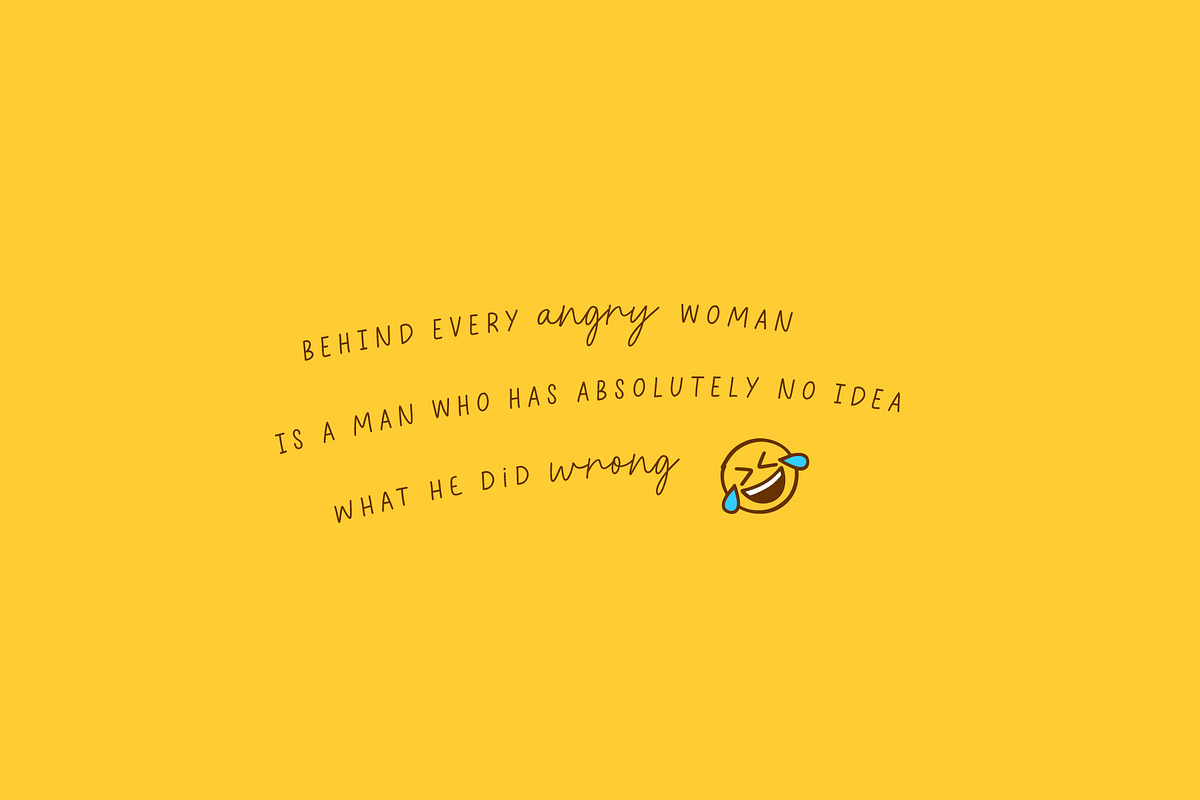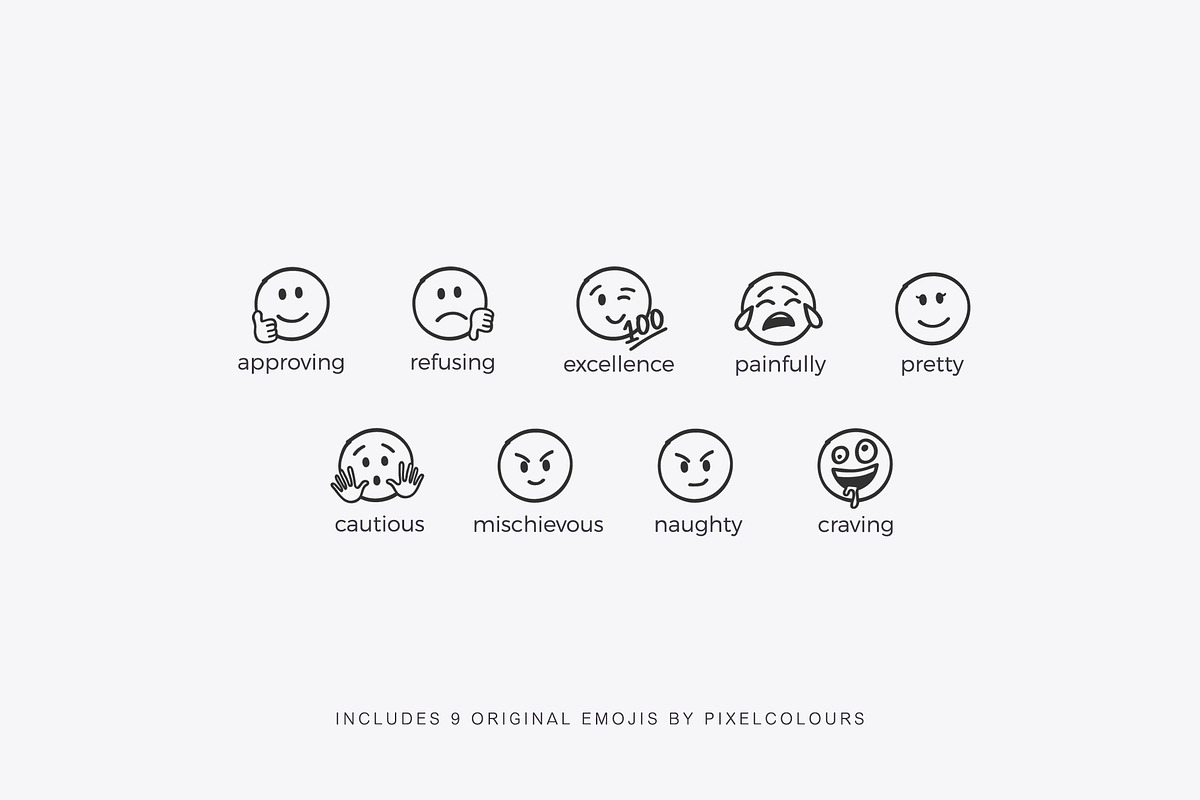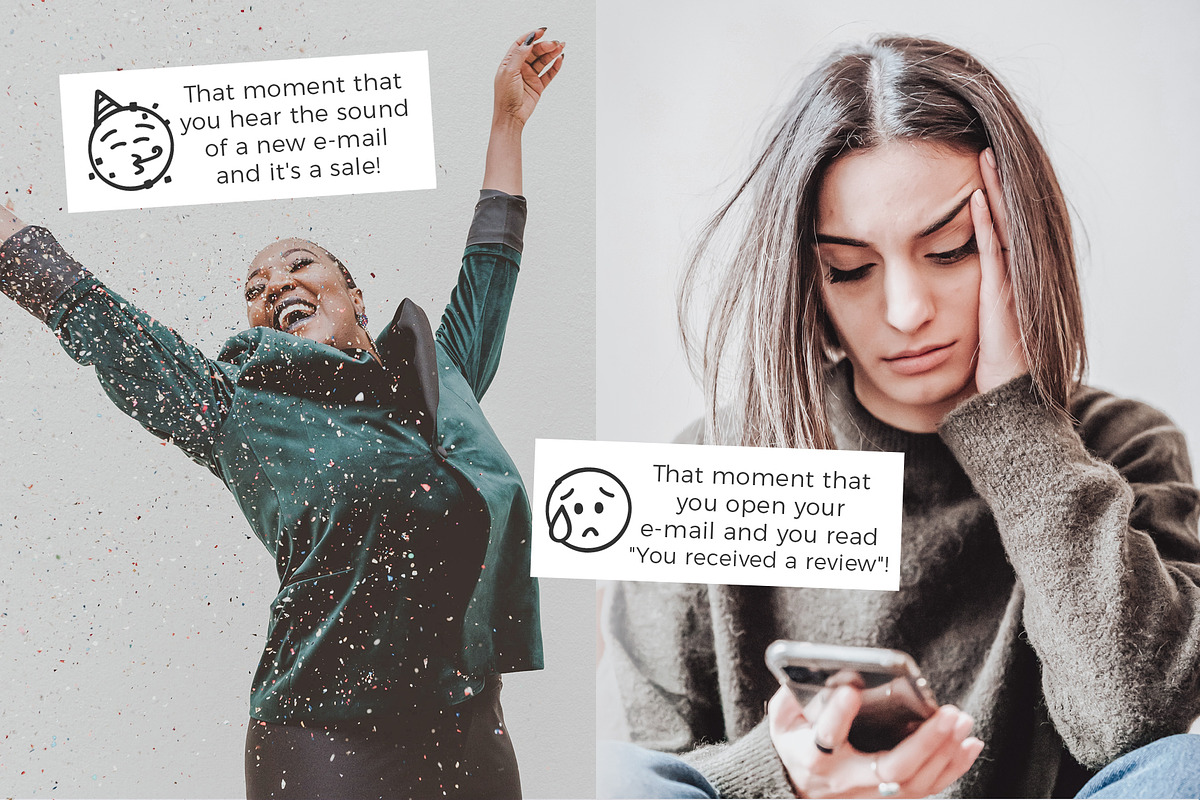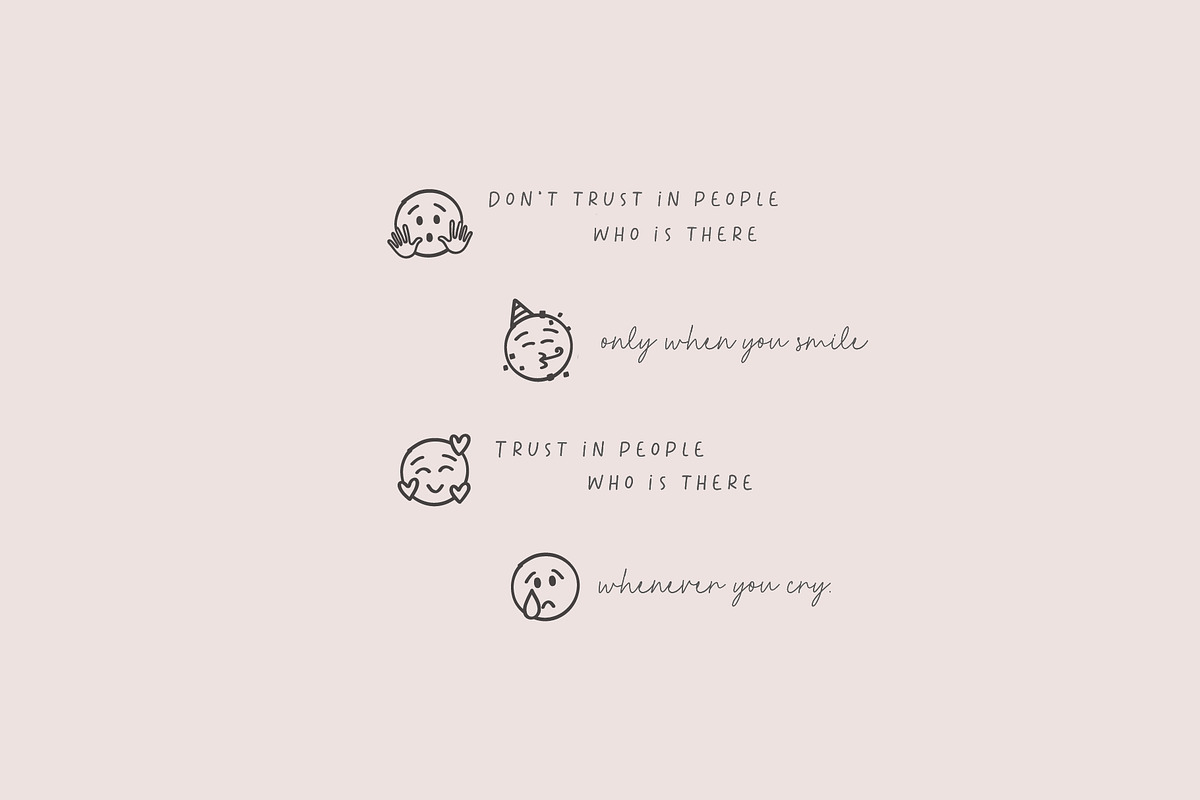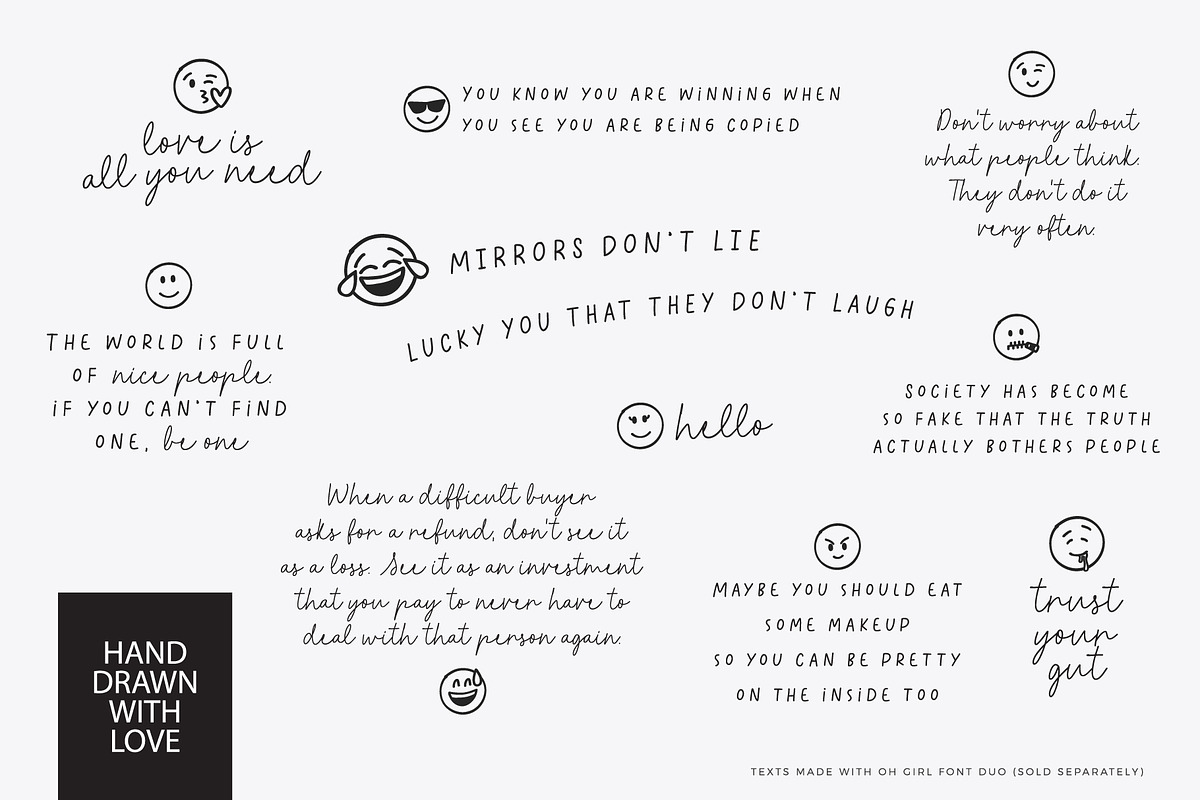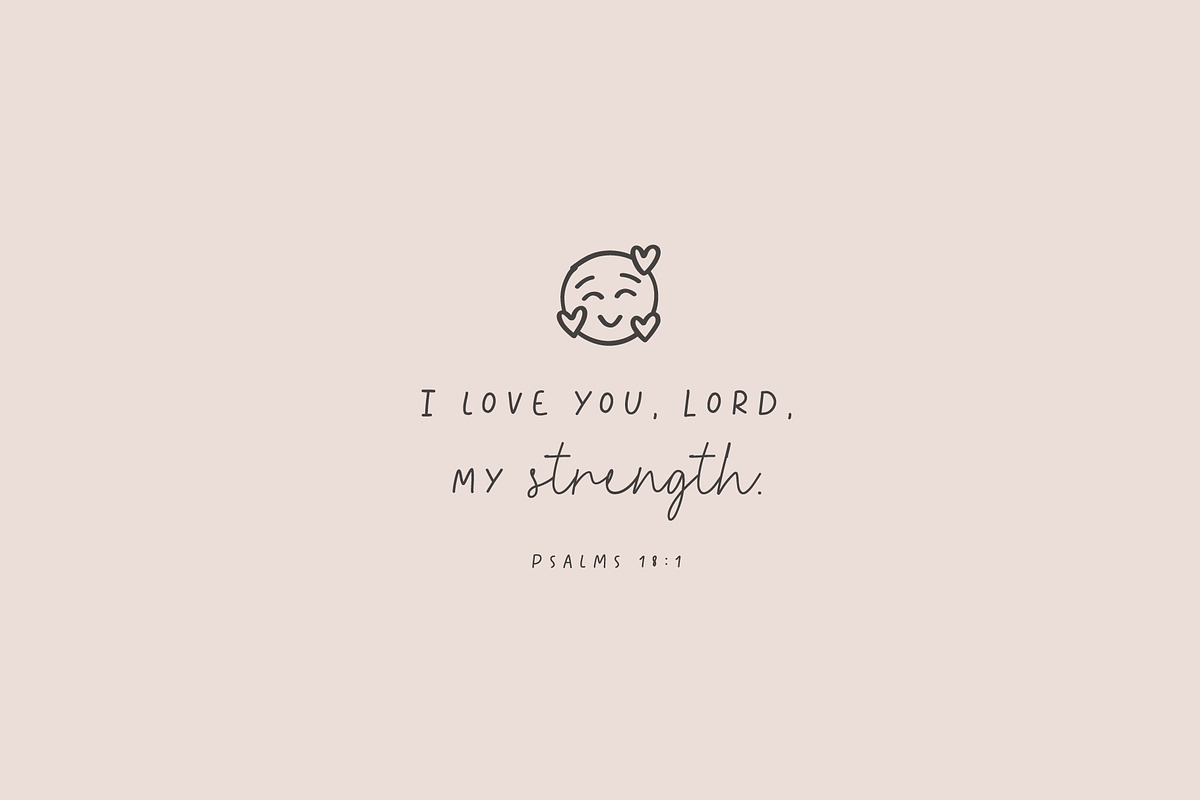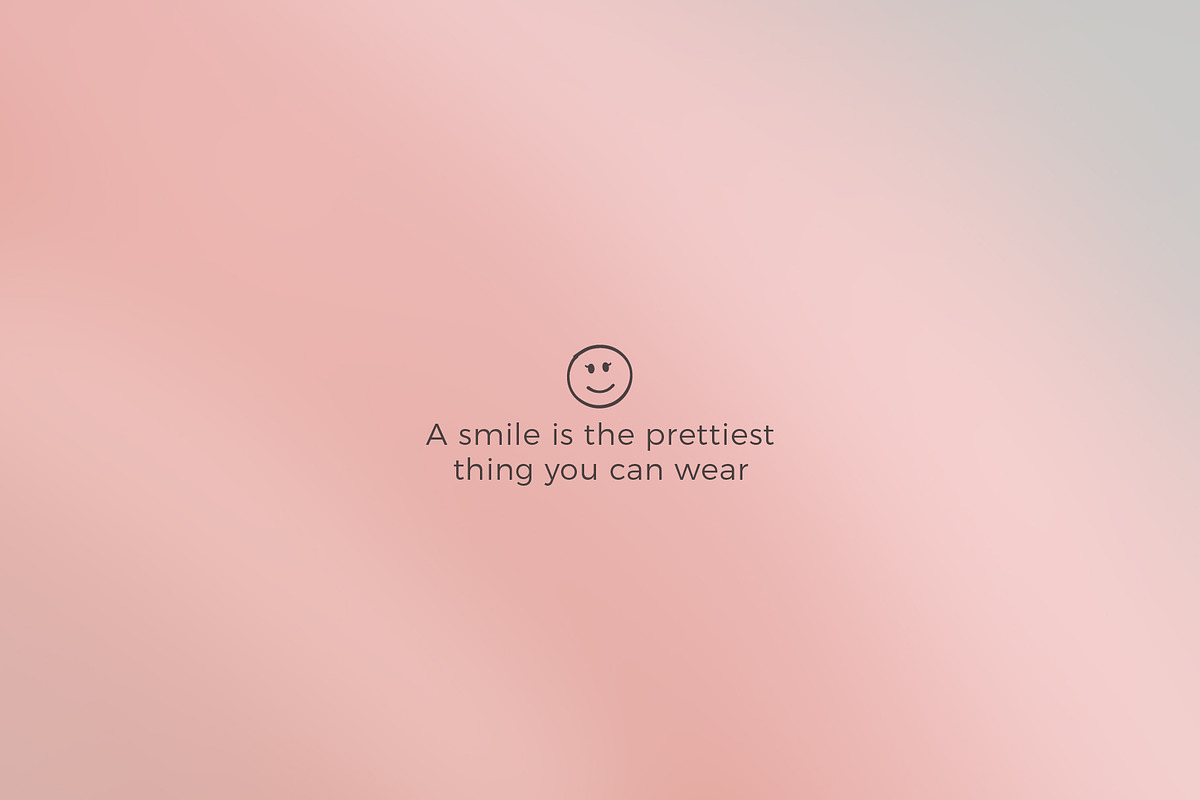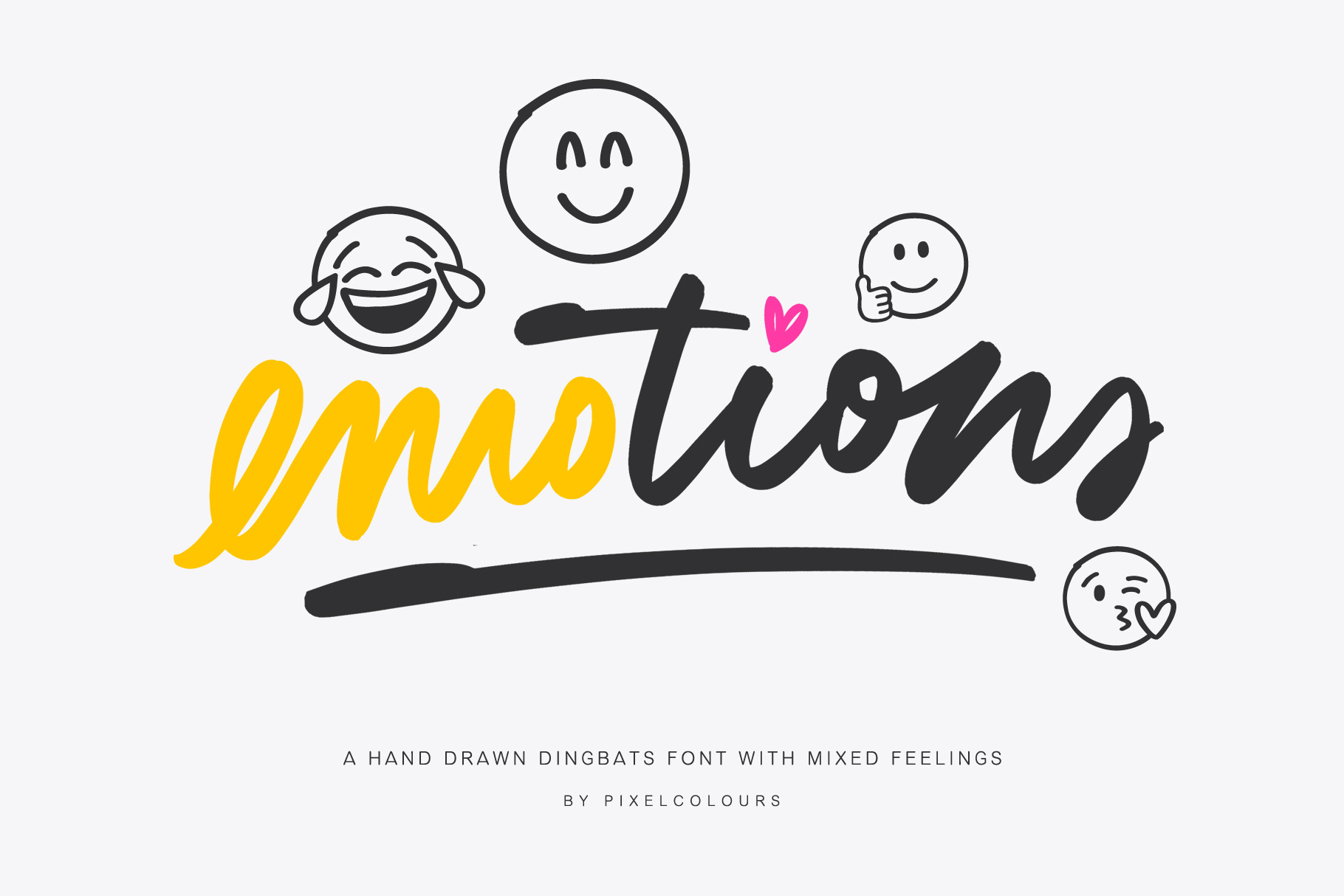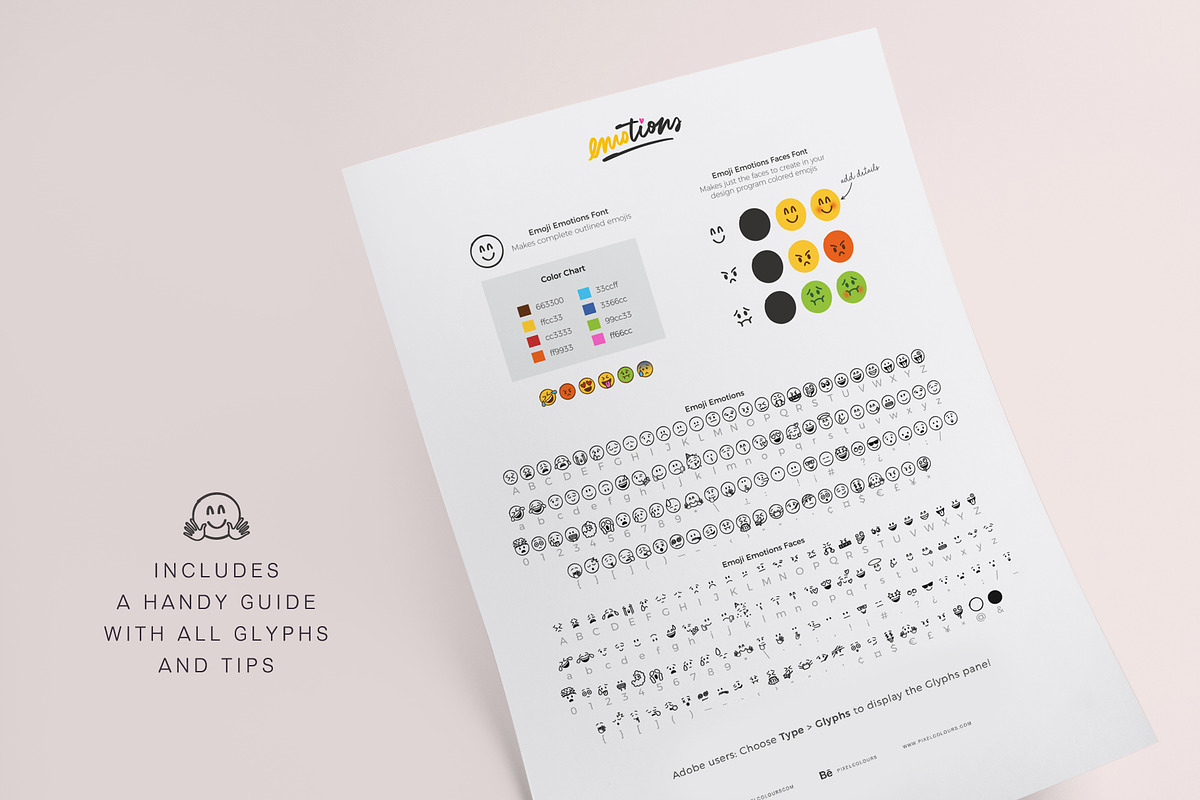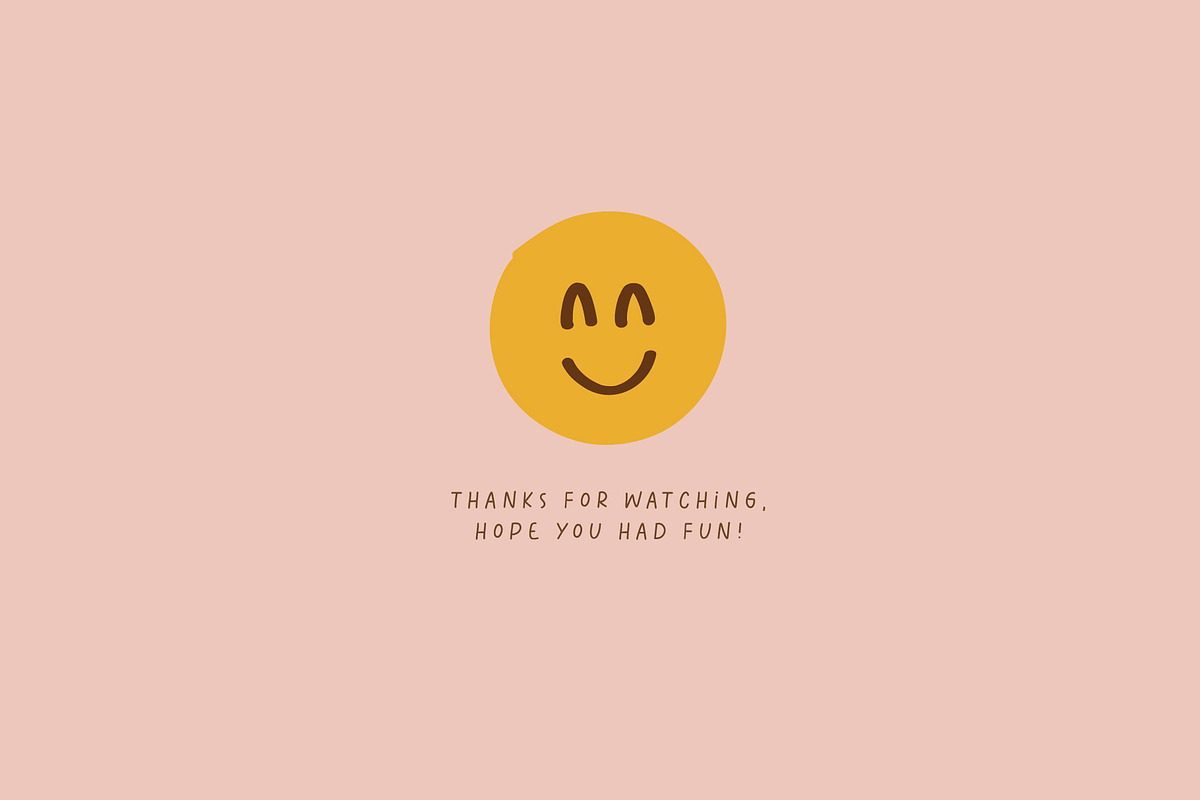
Emoji Font - Dingbats Font
Emoji Emotions Font is a hand drawn dingbats font inspired in human emotions and feelings. Includes the complete emojis and the individual faces to create beautiful quotes, social media posts, posters, cards, ads, packaging or any design with character!
New original emojis
Includes 9 original emojis that you will love! Check the approving, refusing and excellence emojis, great for teachers! :)
- Emoji Emotions: 100 complete emojis
- Emoji Emotions Faces: includes just the faces so you can use with different strokes and colors